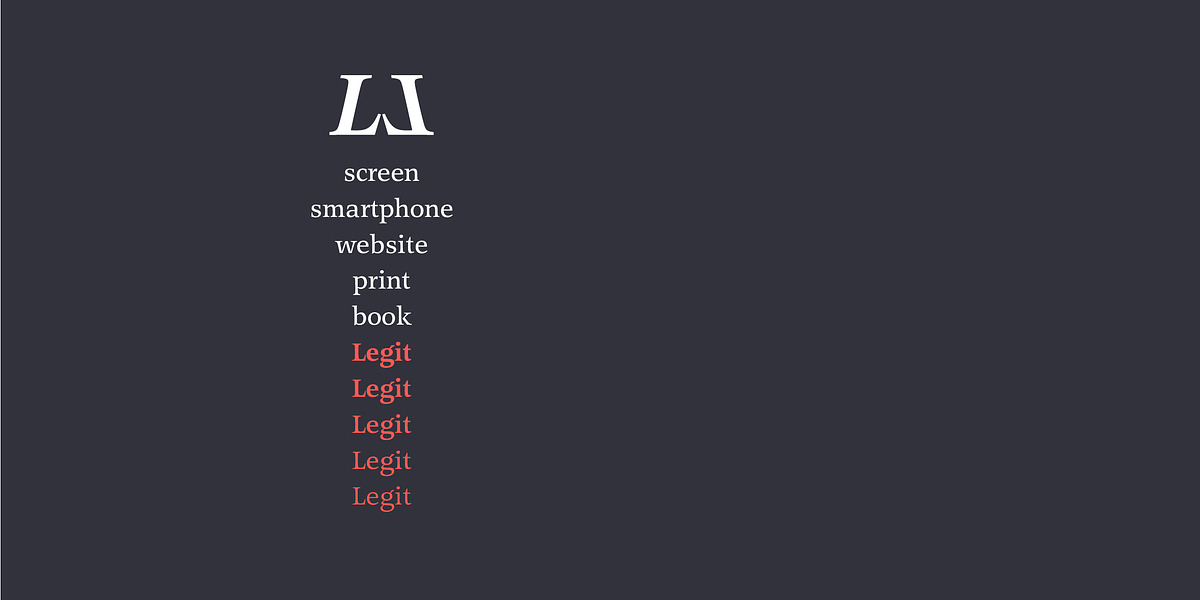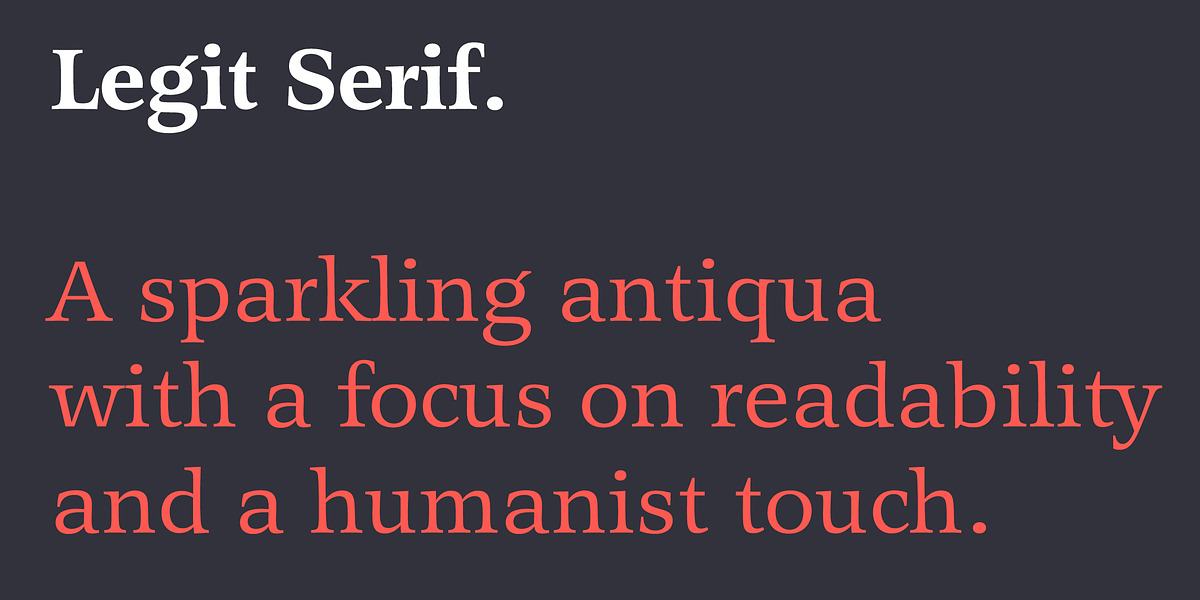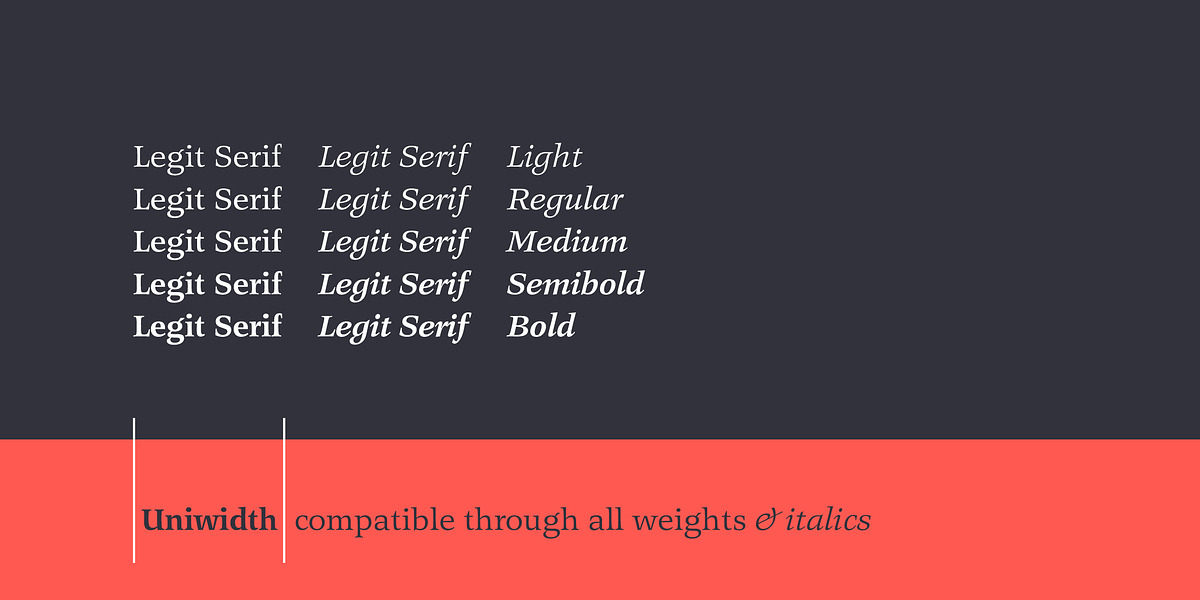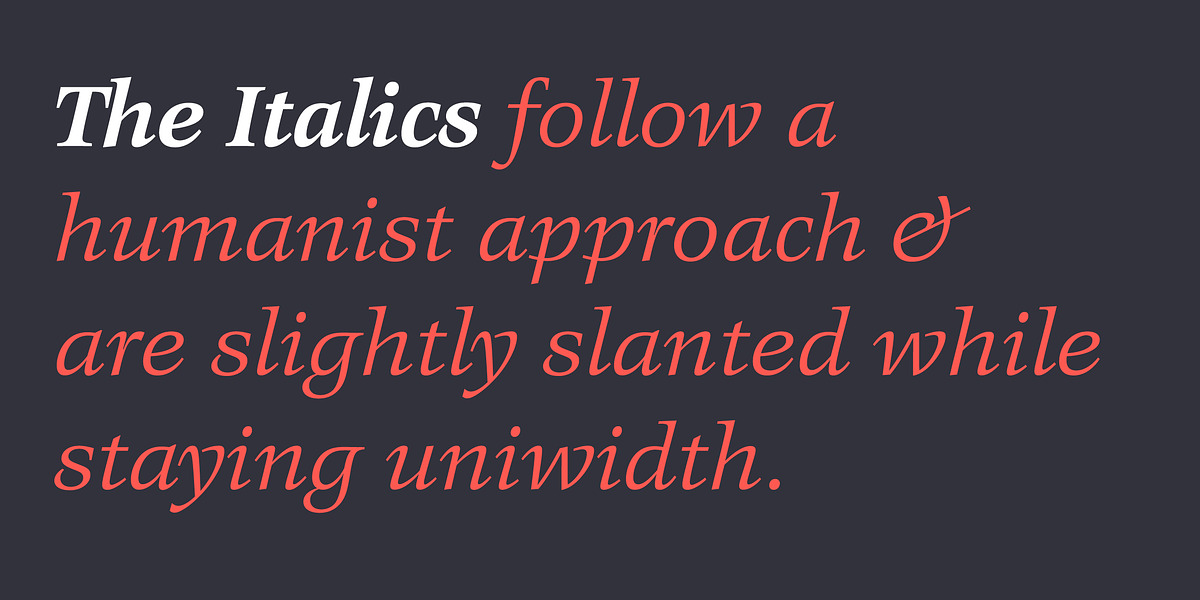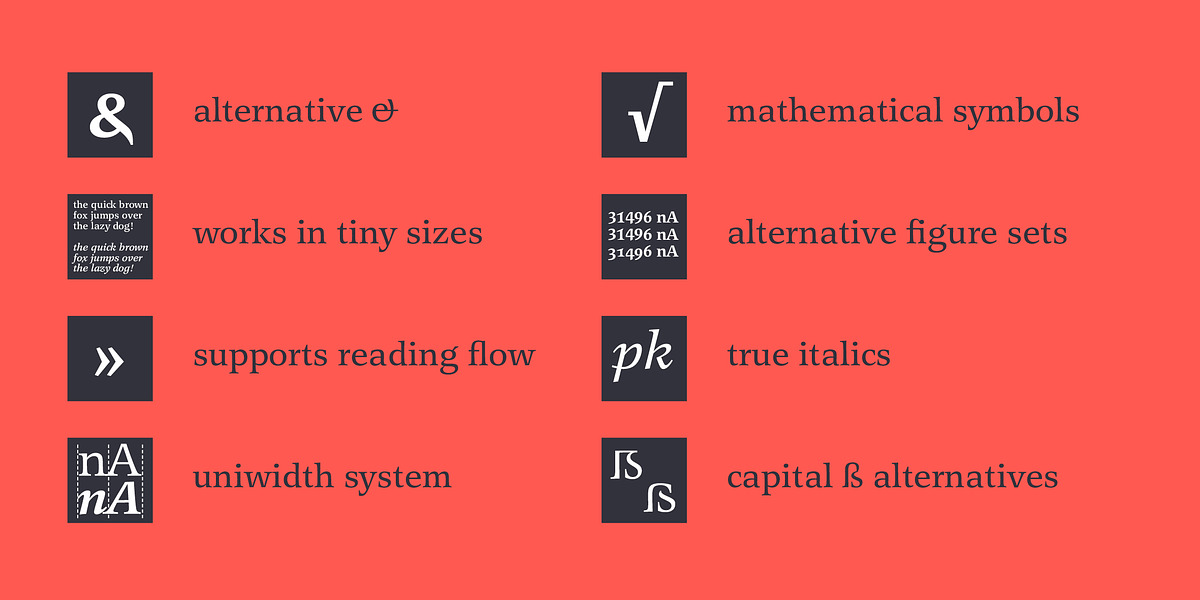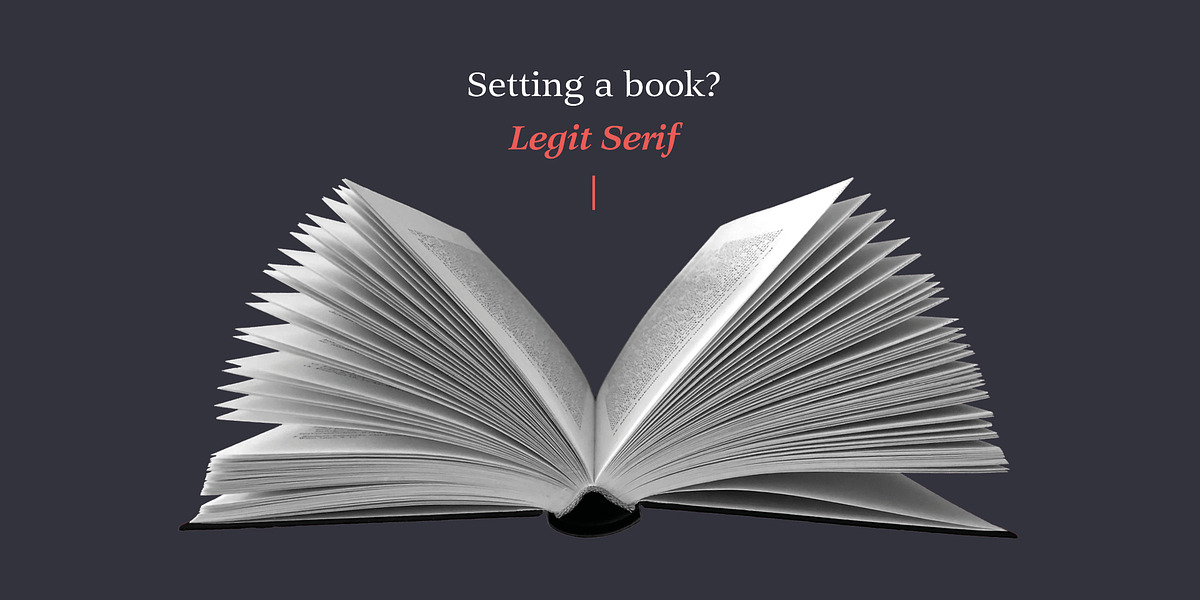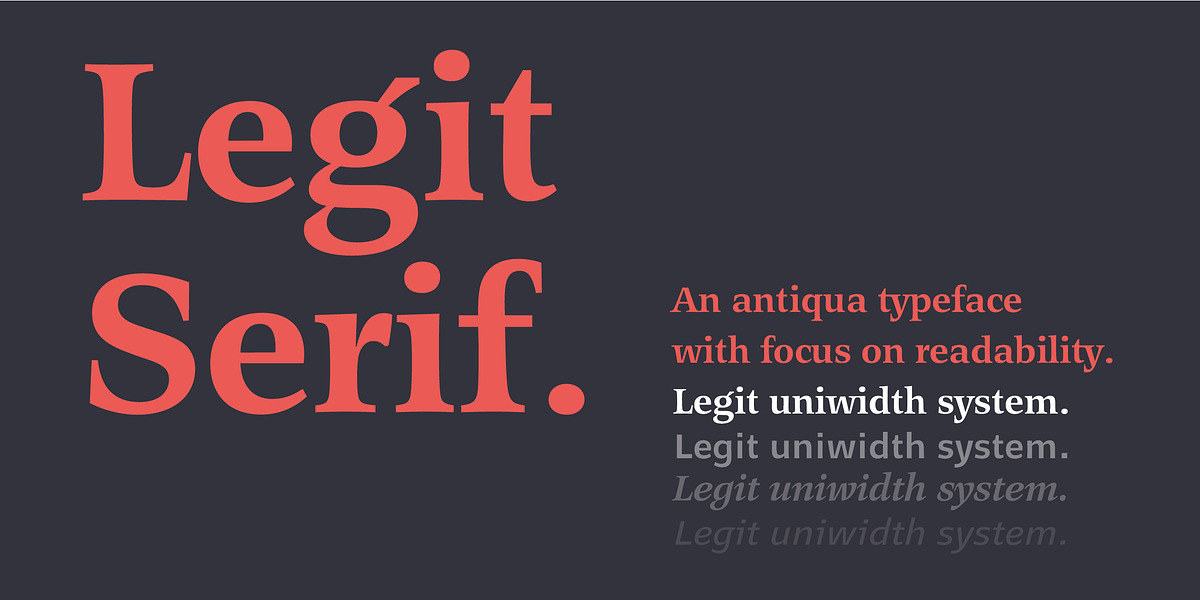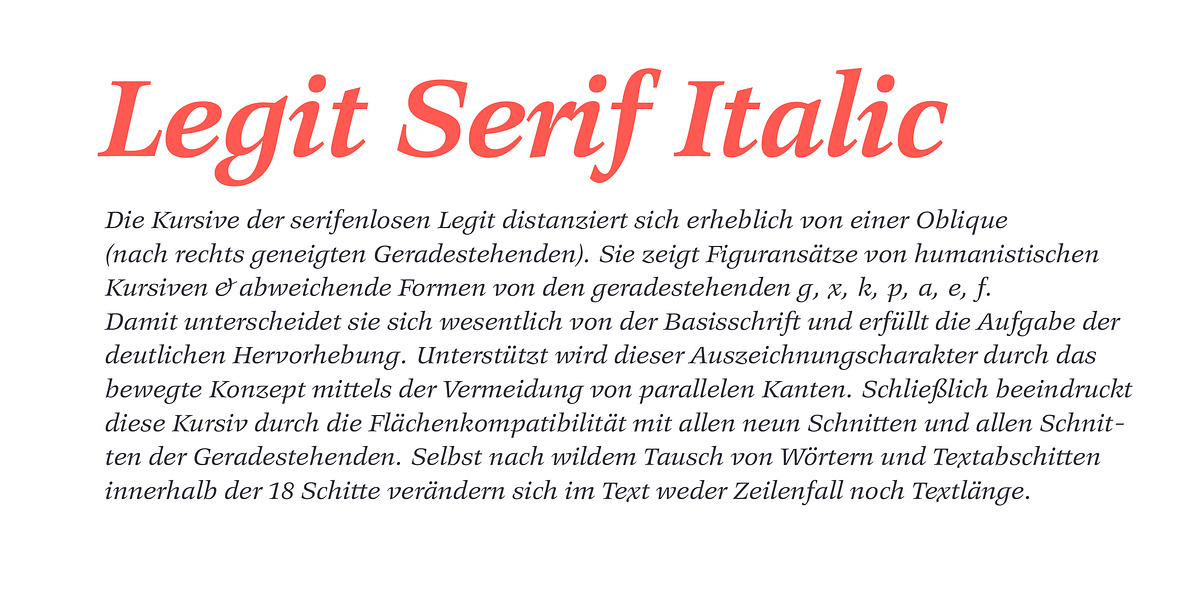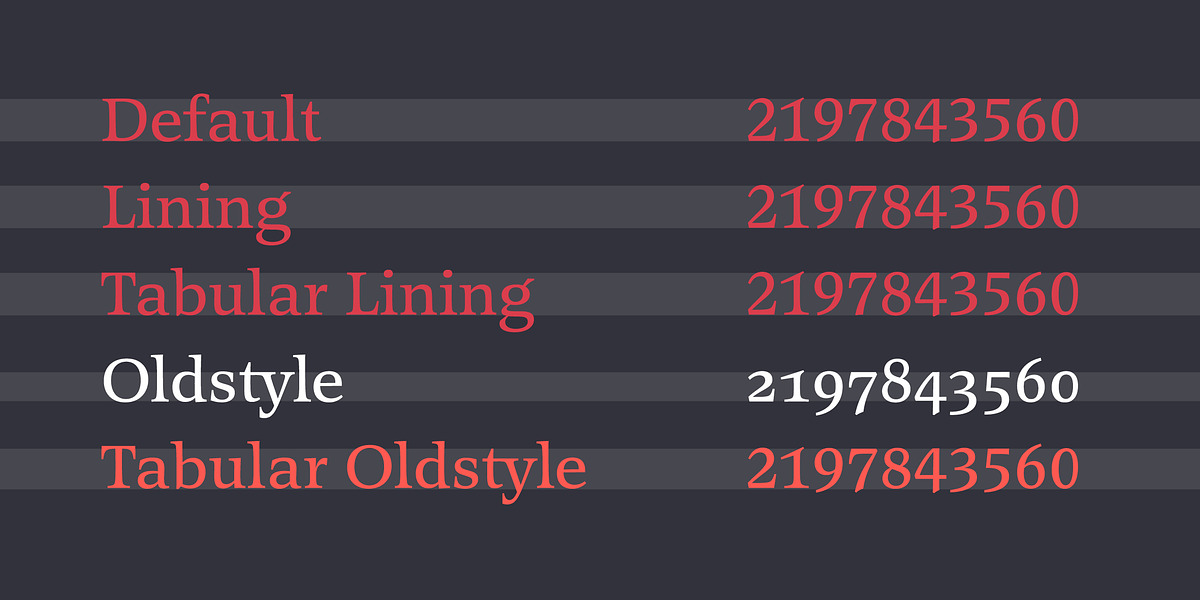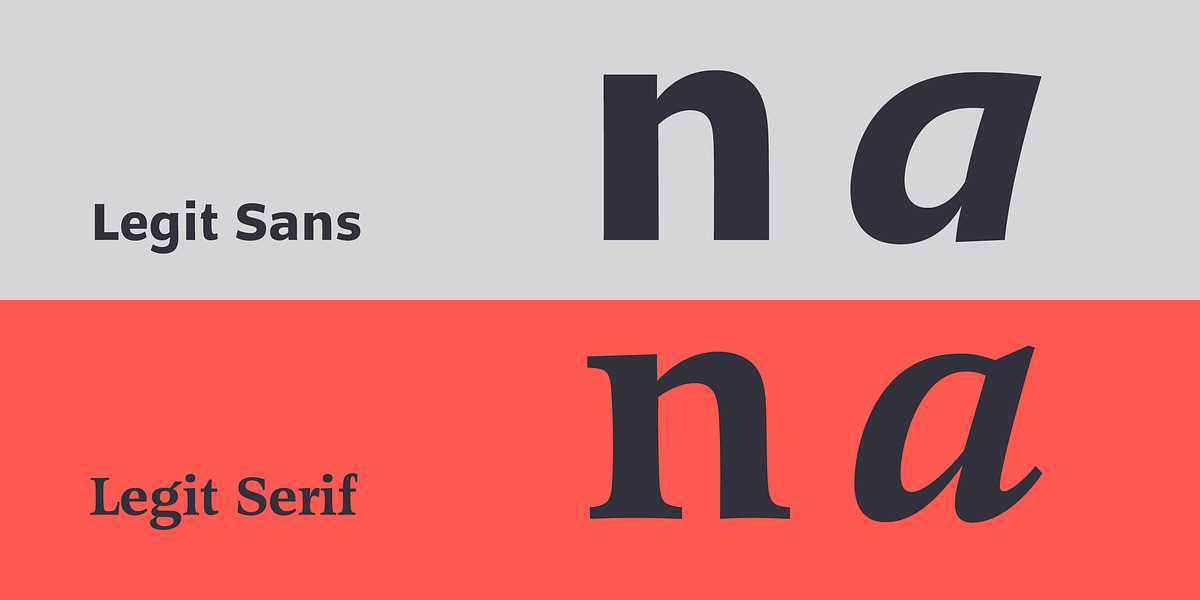
Legit Serif
Legit Serif is a transitional serif font designed for optimal readability in text sizes while maintaining elegance suitable for display use. Its key feature is the uniwidth system, ensuring all 18 styles maintain consistent width and can be swapped without affecting layout. The typeface also includes ligatures, stylistic alternates, and supports over 36 languages.